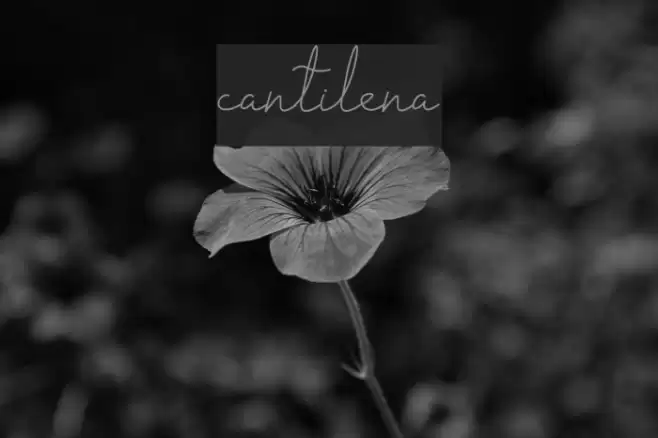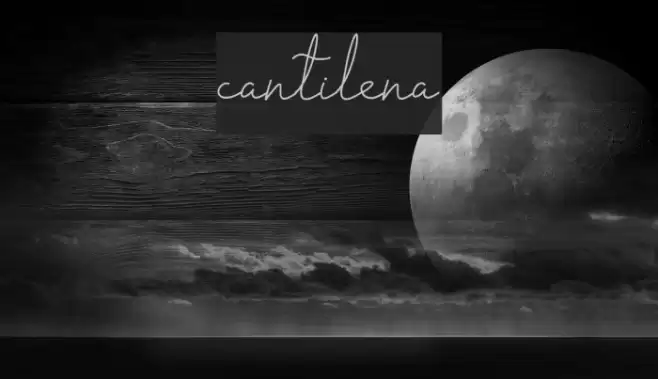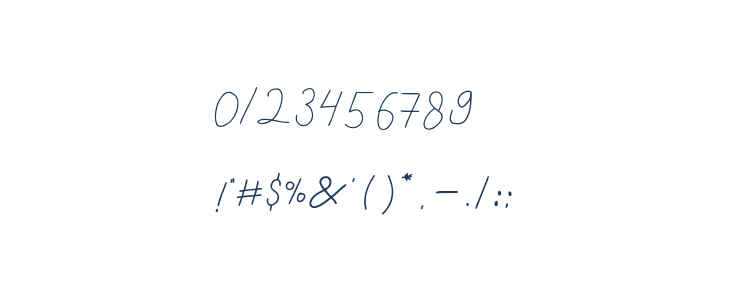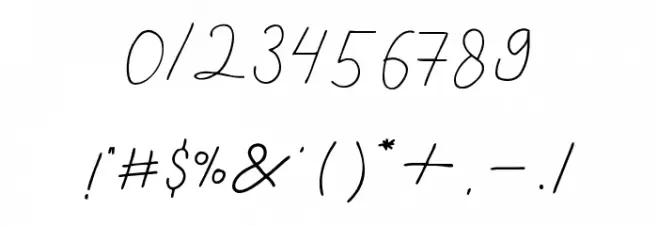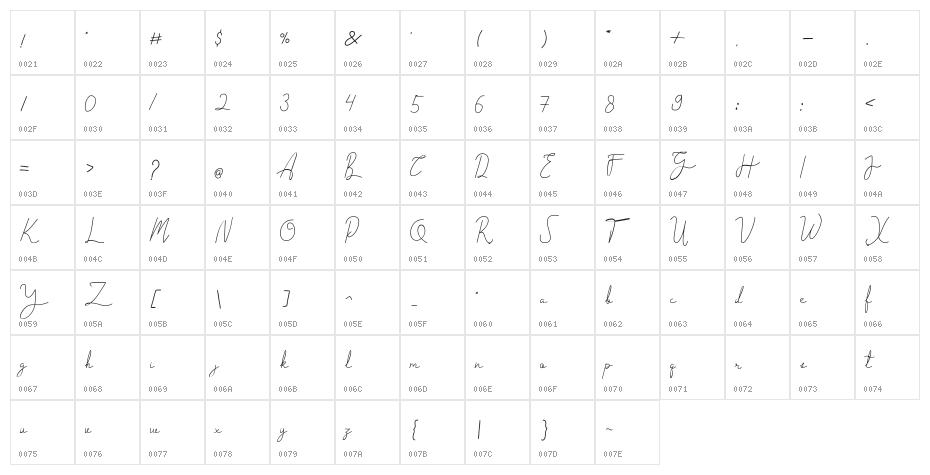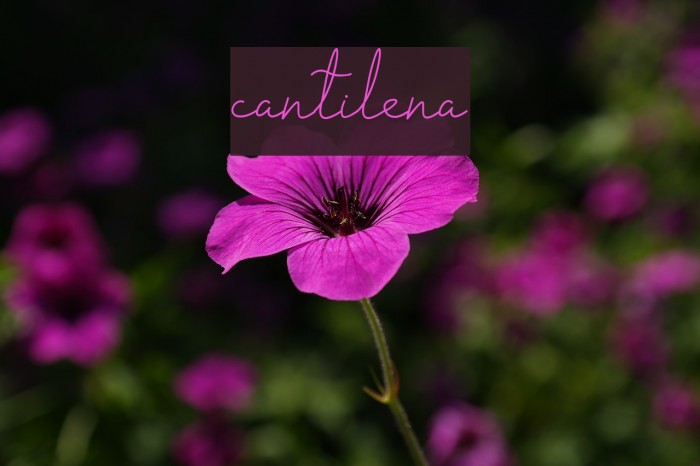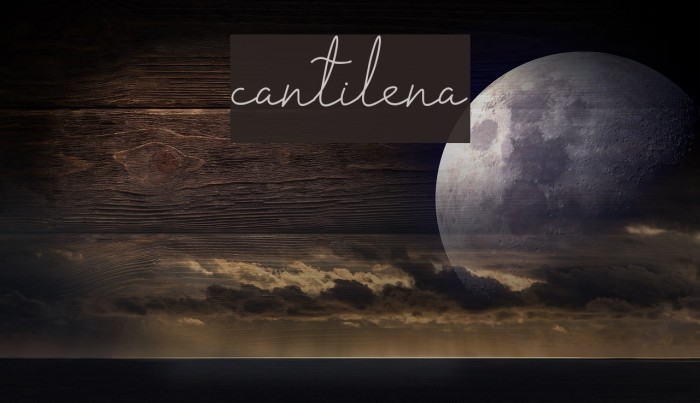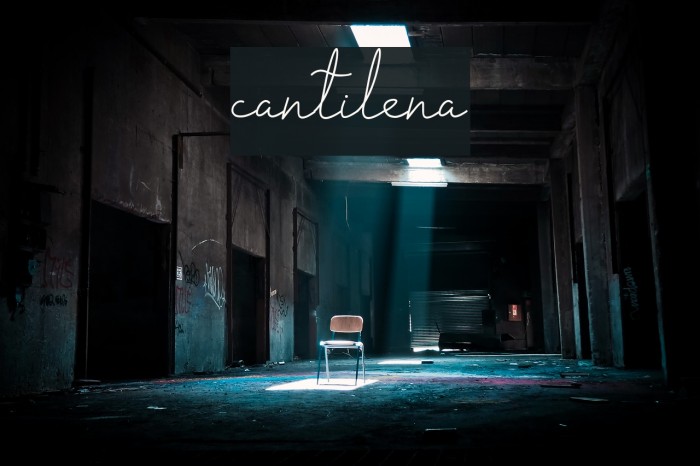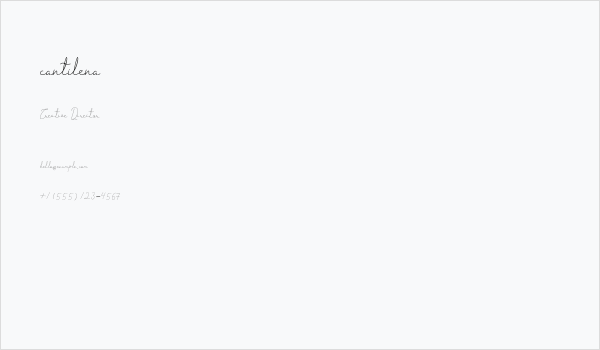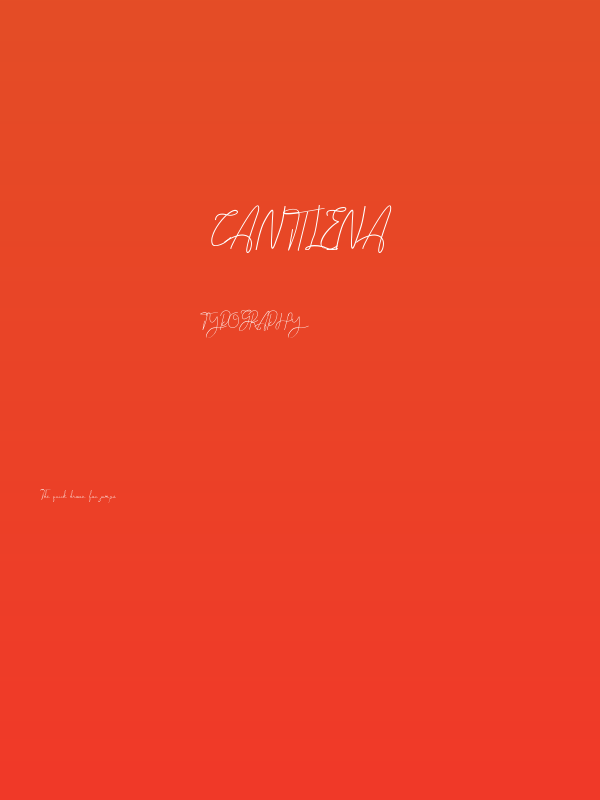
cantilena Font
cantilena Description
This font exhibits a graceful, flowing script style with elegant curves and a handwritten appearance. The uppercase letters are tall and slender, with a slight slant, giving them a sophisticated and airy feel. The lowercase letters maintain a consistent flow, enhancing readability while retaining an artistic flair. The numerals and special characters are designed to complement the overall script style, maintaining the same fluidity and elegance. This font is perfect for adding a personal touch to any project, offering a sense of warmth and creativity.
A graceful, flowing script font with an elegant handwritten style from Uncategorized fonts.
- Proposed Projects: Ideal for wedding invitations, greeting cards, personal branding, and artistic projects.
- Overall Style: Elegant, Handwritten
- Use Case: Logos, Invitations, Artistic projects